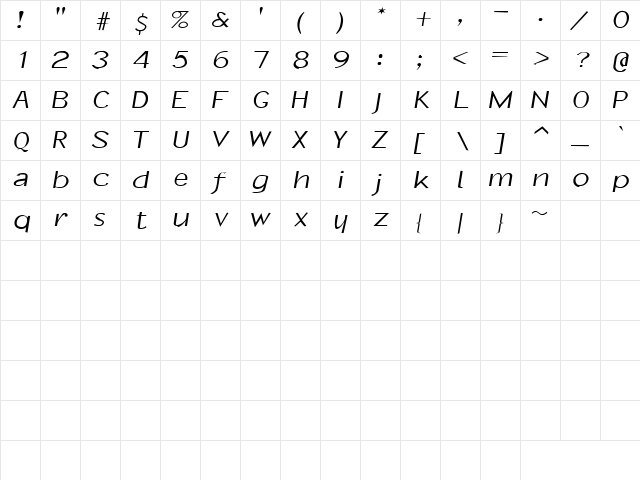
Kashmir 1 Regular Free Font
Kashmir 1 Regular
Design Context for Kashmir 1
Kashmir 1 is a composed and adaptable typeface that performs quietly and consistently across a wide range of design contexts.